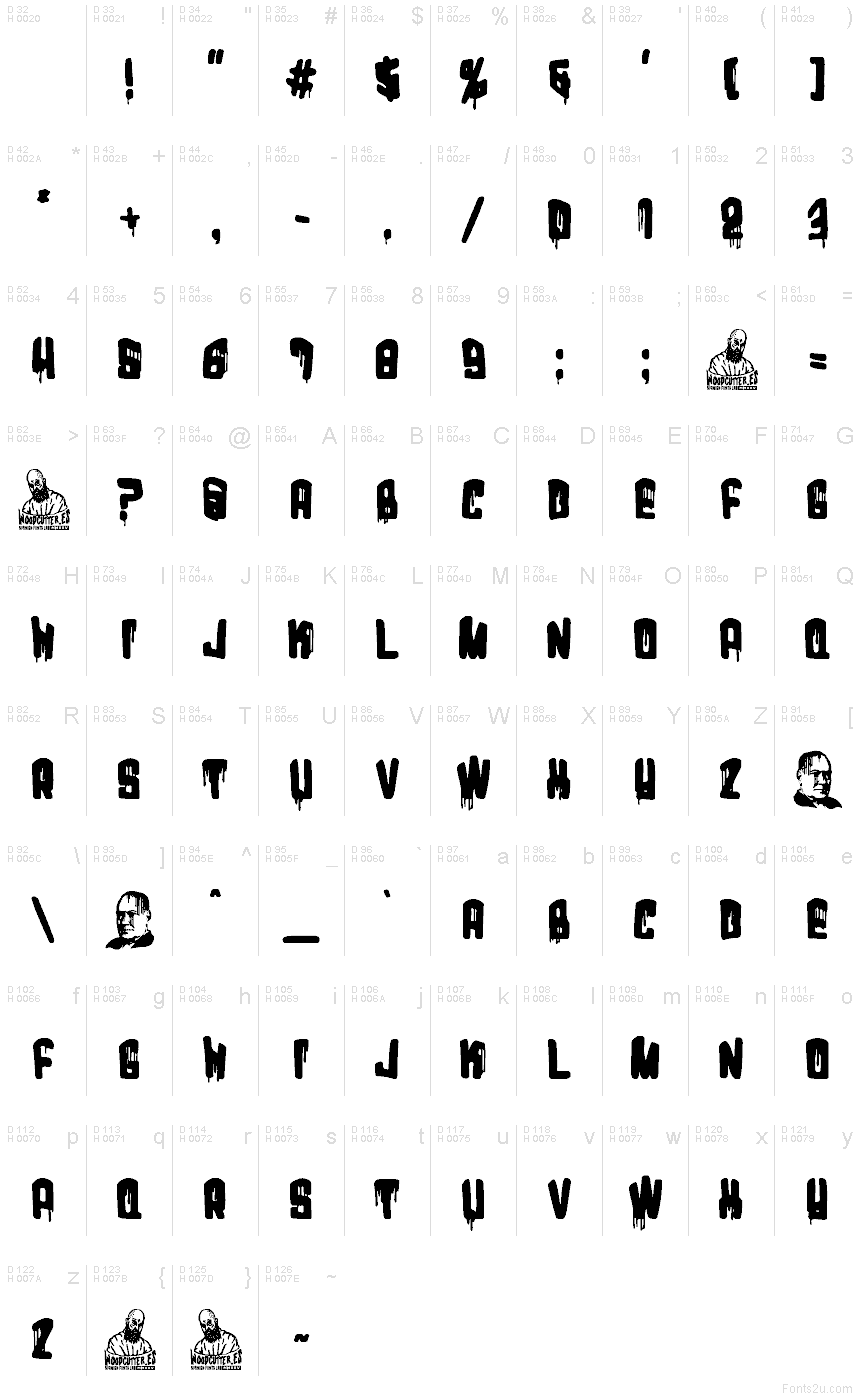
Doctor Machado
Doctor Machado font by Woodcutter is a free scary display font. Thick, inky shapes swell like swollen blocks, then drip into ragged tails that feel part goo, part slasher flick. The rhythm is uneven in a good way—letters lurch forward with a funhouse wobble that instantly reads “horror” without getting illegible.
Using Doctor Machado, headlines hit hard on Halloween posters, haunted house signage, B‑movie title cards, escape-room branding, horror podcast covers, and spooky game splash screens. This free font shines big and bold; keep tracking snug so the blobs breathe together. Pair it with a clean condensed sans for body copy to let the ooze take center stage.